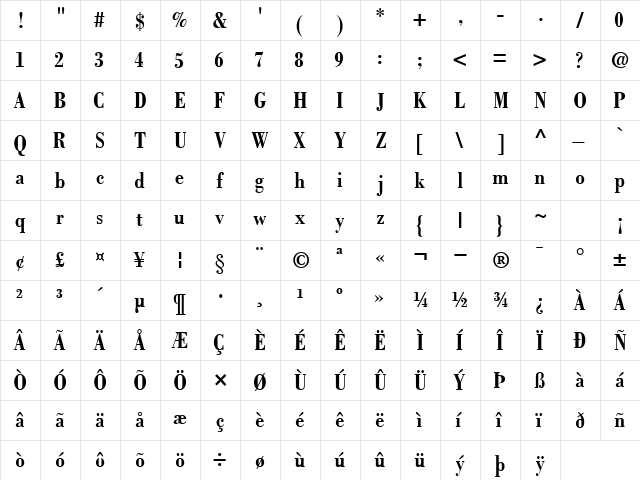
BodoniCondSSK Bold
Design Context for BodoniCondSSK Typeface
BodoniCondSSK is a composed and adaptable typeface that performs quietly and consistently across a wide range of design contexts. The heavy weight commands attention and anchors typographic hierarchies. The condensed width makes it efficient for tight spaces without sacrificing legibility.
Pro Tip: Pair BodoniCondSSK with a font of contrasting weight or personality to build a more expressive typographic hierarchy.